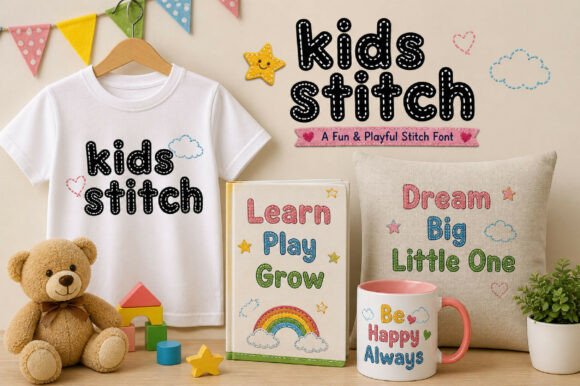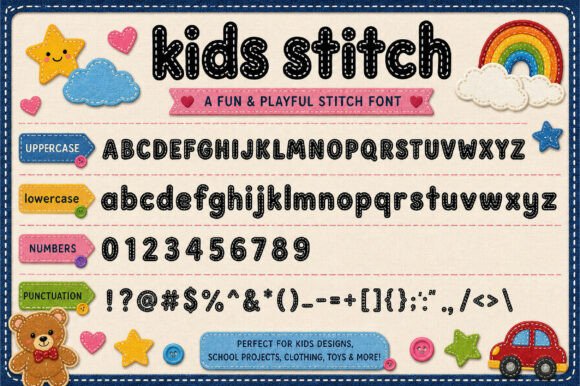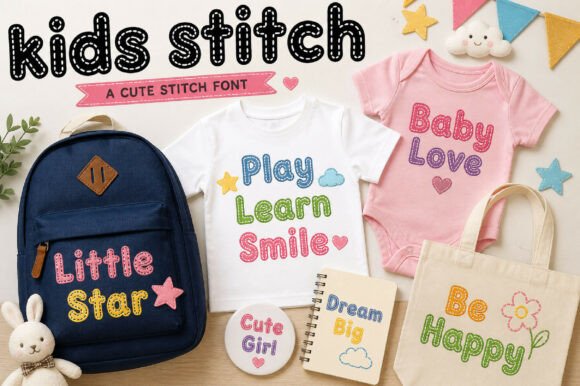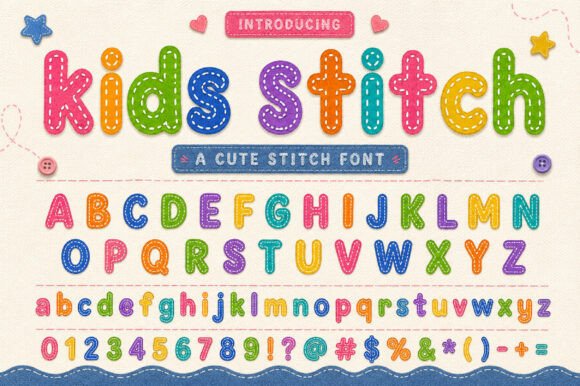
Introduction to Kids Stitch Font
Have you ever sat down with a blank sheet of paper, surrounded by colorful markers and a clear vision, only to be stopped in your tracks by the perfect font? That’s exactly what happened to many designers when they discovered the Kids Stitch Font. Its playful, stitched details and bold rounded shapes bring a sense of joy and whimsy to any design, making it a valuable resource for creatives.
As a design resource, Kids Stitch Font offers a high-quality, transparent background that makes it easy to use in a variety of creative projects. Whether you’re designing for kids, handmade products, or playful brands, this font is sure to add a touch of warmth and personality to your work. And the best part? It’s available for free download, making it an accessible addition to any design toolkit.
Key Features of Kids Stitch Font
- Unique, colorful design perfect for creative projects aimed at children, such as educational materials, crafts, and kids’ party decorations.
- High-quality, vector-based font with a transparent background, allowing for seamless integration into various design resources.
- Easy to customize and edit, with a simple and intuitive design that lends itself well to creative experimentation.
Honest Review: Kids Stitch Font
I recently stumbled upon the Kids Stitch Font, a charming design resource that’s perfect for creating engaging, playful content. The font features a beautiful, hand-stitched aesthetic that adds a personal touch to any creative project.
What works well: ✨ The font’s high-quality design makes it suitable for a wide range of applications, from digital to print media. Its transparent background allows for seamless integration into various backgrounds, ensuring your design doesn’t get lost in the mix.
Limitations: ⚠️ While the font is generally well-suited for most applications, its stitched design may not be ideal for projects requiring a more formal or sophisticated tone.
Overall impression: I’m impressed with the Kids Stitch Font’s charm and versatility. Its unique design makes it an excellent addition to any design library, and its free download makes it accessible to designers of all levels.
The Kids Stitch Font is a high-quality design resource ideal for creating a variety of creative projects. This free download features a unique and playful style perfect for designs requiring a transparent background.
For optimal results, use the Kids Stitch Font on a transparent background and experiment with different font sizes and styles to achieve a unique look.
The Kids Stitch Font is ideal for creating children’s book covers, party invitations, and educational materials. Its playful style makes it perfect for designs requiring a fun and creative touch.